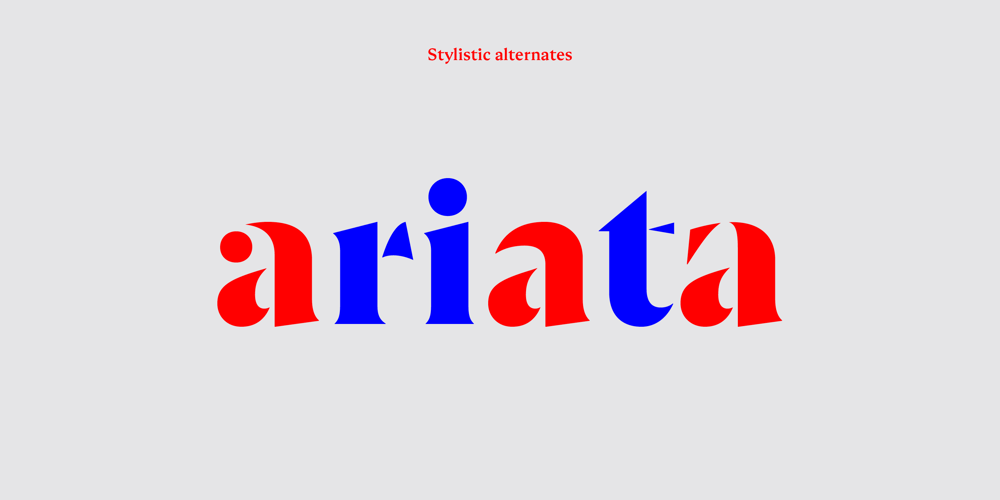
Ariata Font Family was designed by Malou Verlomme and published by Monotype. Ariata contains 12 styles and family package options. Ariata™, from Malou Verlomme, is three typefaces in one. Like phases of the moon, they gracefully meld from one to the other. The “Text” weights are sturdy designs that perform as well in blocks of copy as they do in the occasional headline. The “Display” versions of Ariata are delicate but confident designs that shine in large sizes, while the “Stencil” typefaces are eye-catching and provocative. Each version is available in four weights, from a forthright regular to a robust black, making for a family that is comfortable taking on a wide variety of tasks. The individual designs can be combined with each other to create a distinctive, yet cohesive typographic statement, or stand on their own as confident communication tools. If you want a little more variety, Ariata’s solid glyphic shapes will serve as a dynamic counterpoint to just about any Humanistic sans. Space economical and distinctly original, Ariata easily creates commanding headlines, pull-quotes and subheads. Packaging, game branding, posters, book jackets and advertising design are all also within its comfort zone. While primarily intended for print applications, Ariata’s full-bodied x-heights, generous counters and clear apertures make for a design that is also at home in many digital environments. Verlomme is an award-winning Senior Type Designer at Monotype. He has a degree in graphic design from l’École Duperré in Paris, and an MA in Typeface Design from the University of Reading. He taught type design at several universities in Paris and still occasionally lectures and gives workshops. His typeface Camille has the honor of being part of the collection at France’s Centre National des Arts Plastiques (CNAP). Verlomme also designed Placard® Next, Madera™ and Johnston100, London’s new underground branding typeface. Click here to see all of https://www.monotype.com/studio/malou-verlomme Malou Verlomme’s typeface designs.